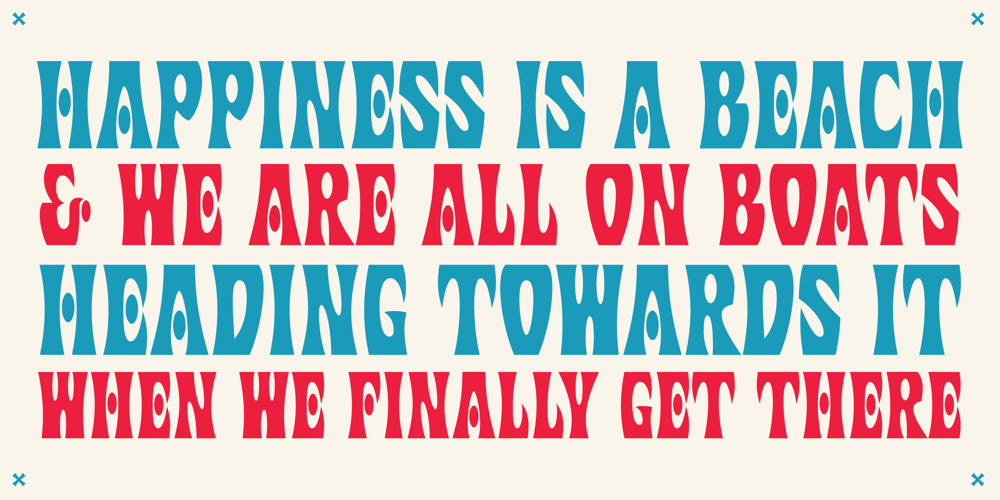
Johnny
Johnny font
Johnny Font Family was designed by Phil Martin, Rebecca Alaccari, Patrick Griffin and published by Canada Type. Johnny contains 1 styles and family package options. Johnny is the latest addition to the long line of popular psychedelic/hippy/funky art nouveau fonts representing the retro side of the Canada Type library. It is the digitization of a popular 1969 Phil Martin typeface that was known by two different names: Harem and Margit. The film type version had plenty of irregularities and quirks that made it seem like it was done in a hurry. In this digital version the errors have been corrected and the character set expanded to include international characters with built-in alternates, to be on par with what today’s layout artists expect from a high quality font. This font saw a lot of use on record sleeves and music posters throughout the pre-disco part of the 1970s, which makes it a veteran of both the psychedelic and funk periods. This makes it the sharper, sturdier art nouveau contemporary personality of Canada Type’s Tomato font. This font contains a very expanded character set that includes full support for Central, Eastern and Western European languages, as well as Baltic, Turkish, Esperanto, Greek, Cyrillic and Vietnamese.